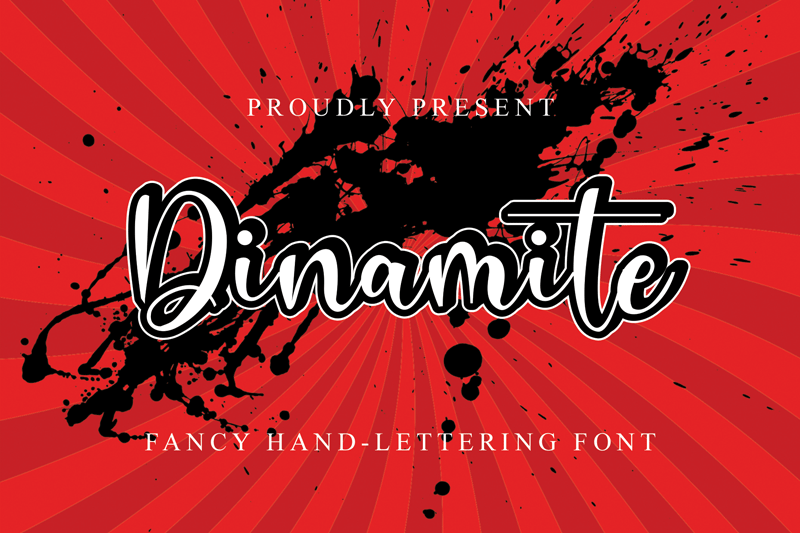
Font name: | Dinamite |
Dinamite is a fun handwritten font. A little bit quirky, this font looks incredibly adept on a wide variety of contexts! Attention : Dinamite handwriting Font is prohibited to use this font for commercial purposes or for profit without the permission of the author/admin, without being known to use this font without permission, will be subject to sanctions 5x the specified price. This font is used only for demos (Demo license) If you want to use this font for commercial use please contact email: erikluluk0@gmail.com or click the link below: https://www.creativefabrica.com/product/dinamite-6/ref/745146/ If you want to see more other fonts, please click:https://www.creativefabrica.com/designer/erik-studio/ref/745146/ Any donations are very appreciated. Paypal account for donation: https://paypal.me/erikstudio1 thanks. |